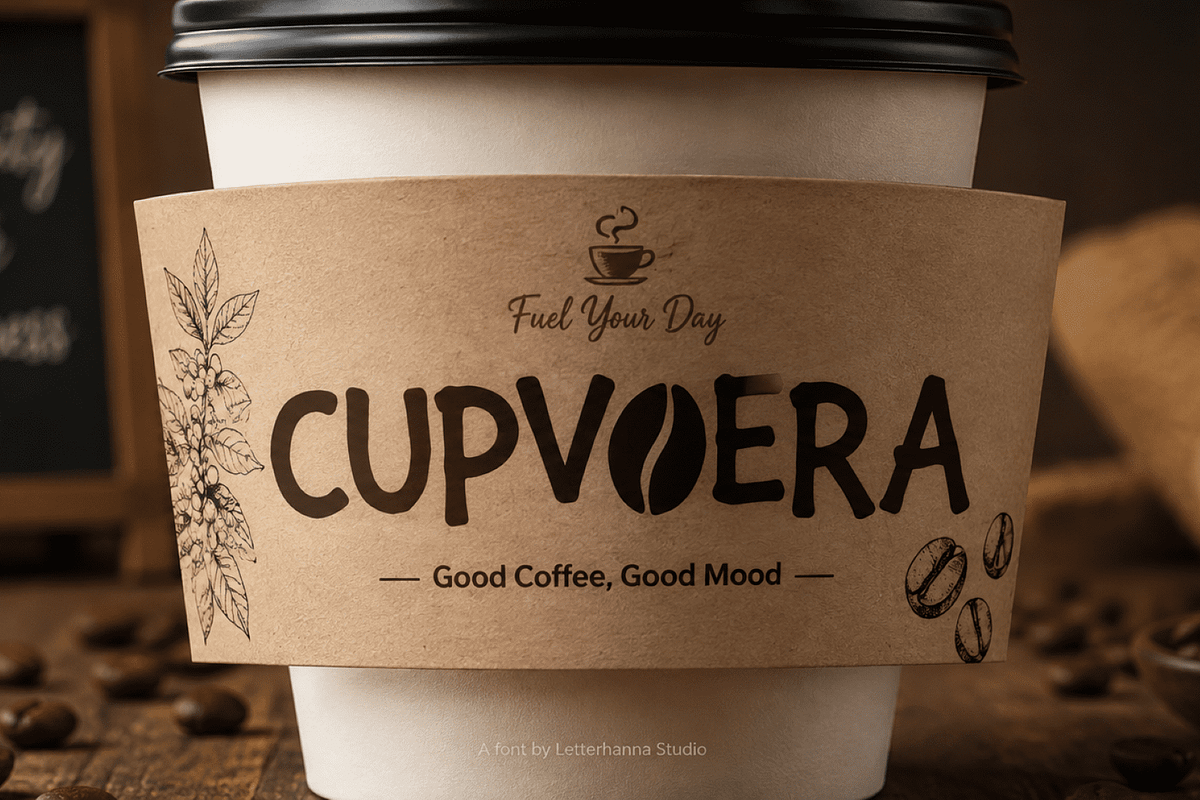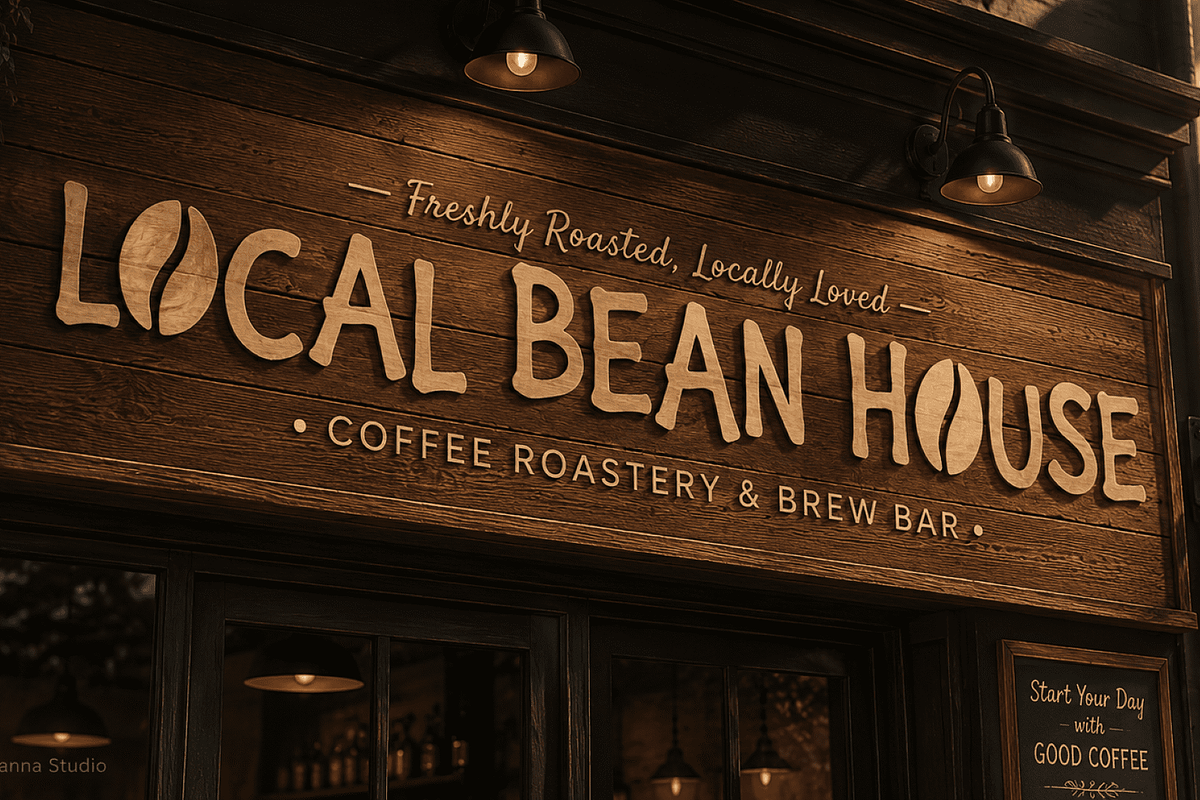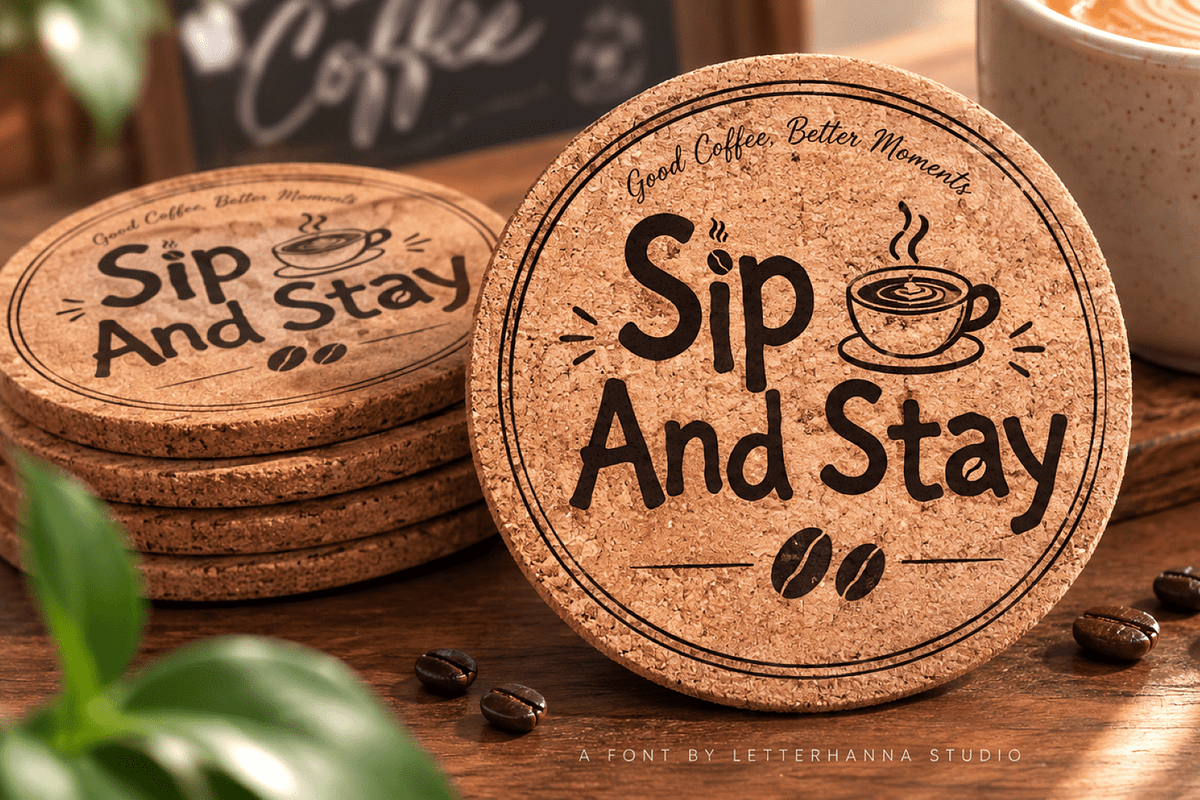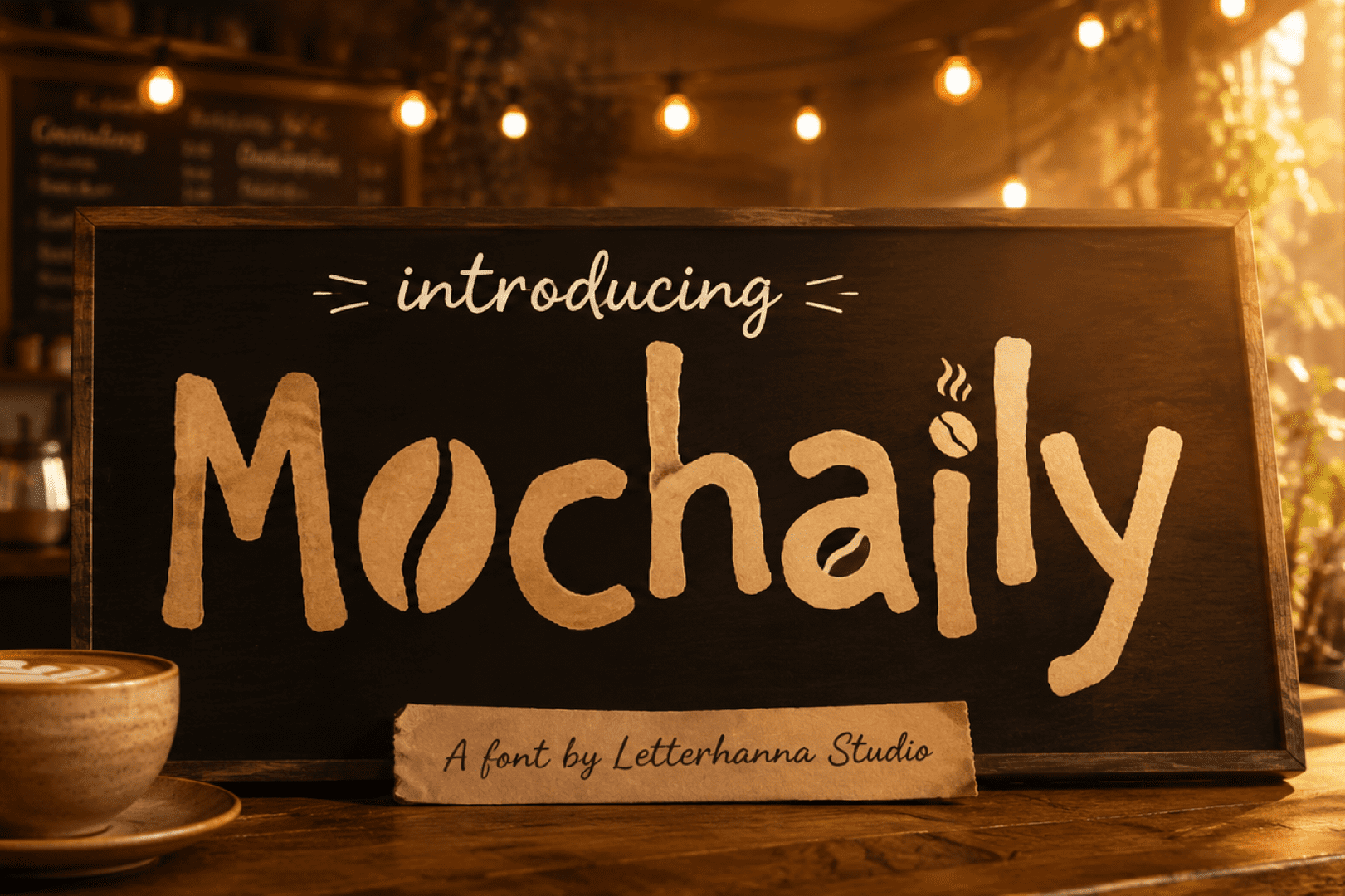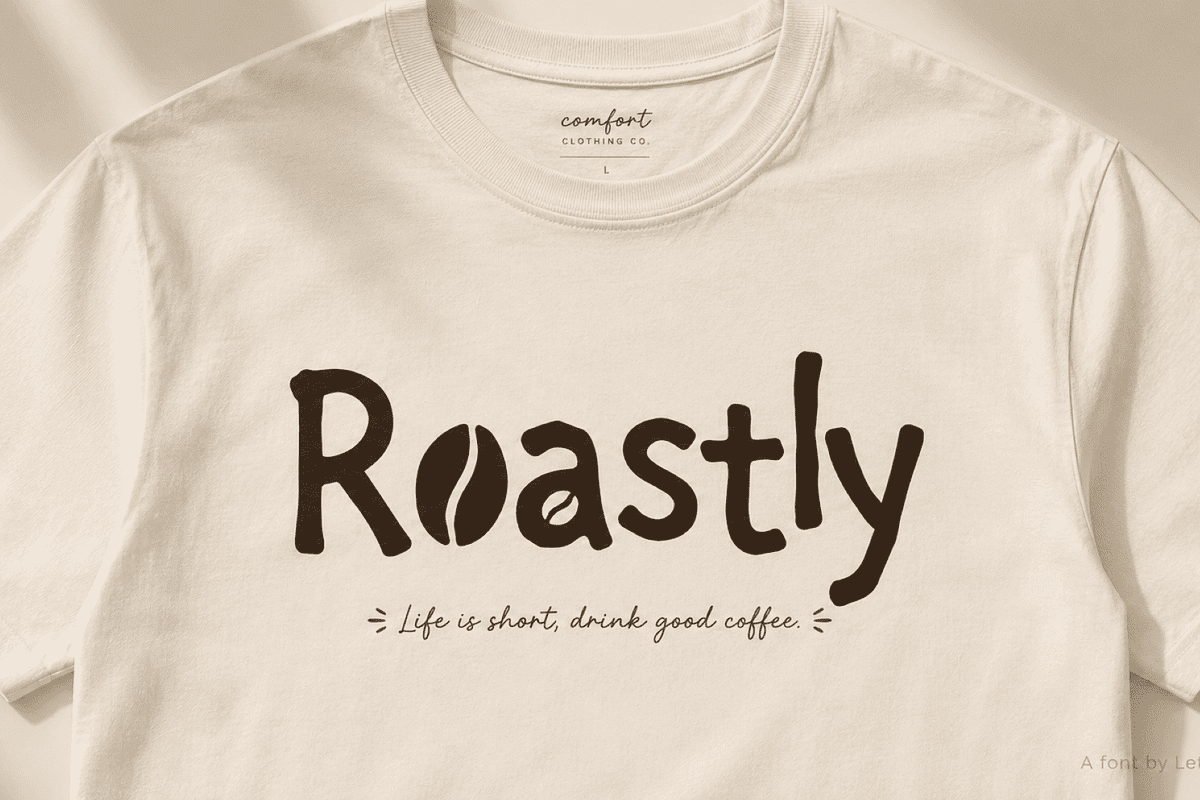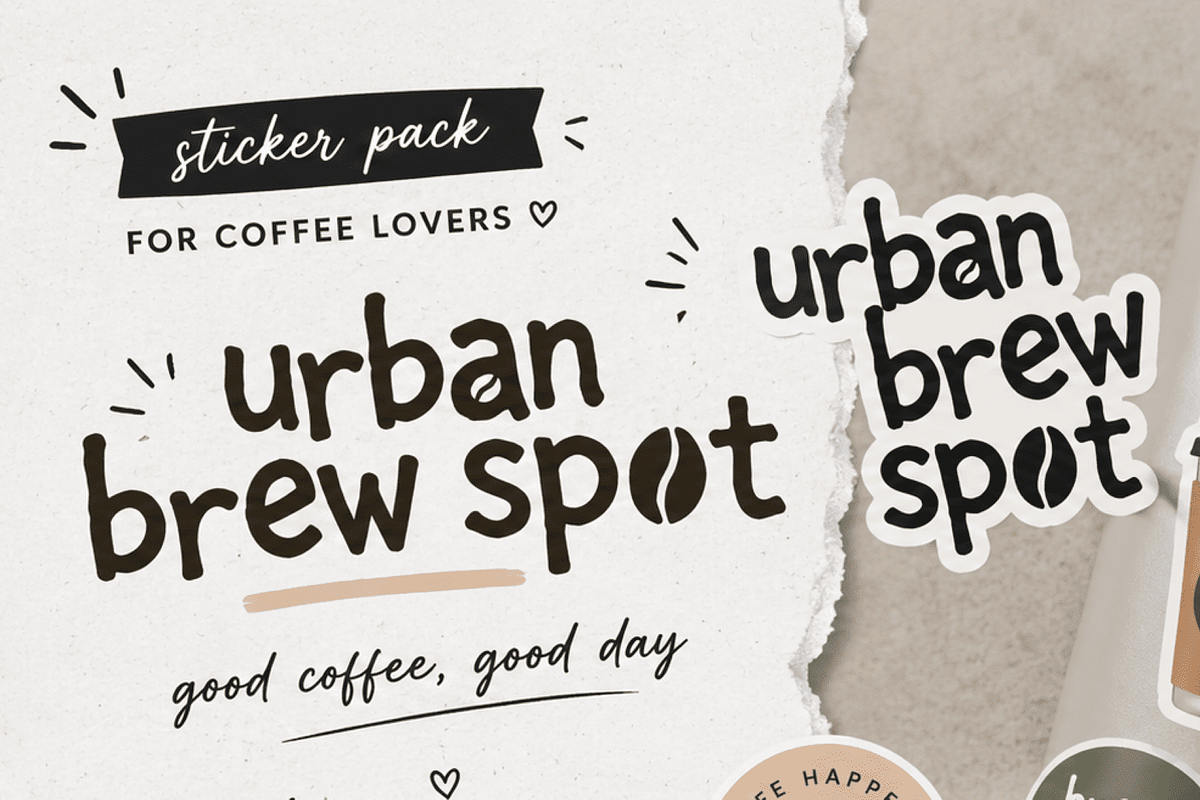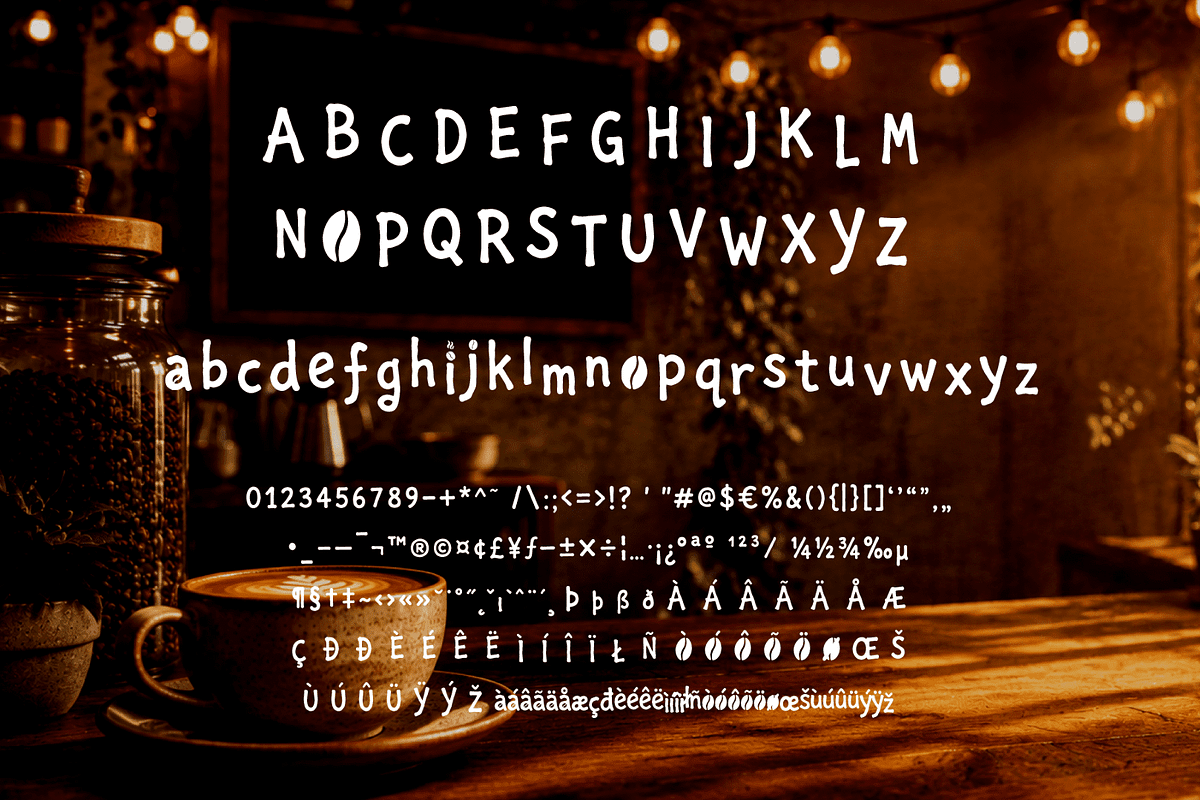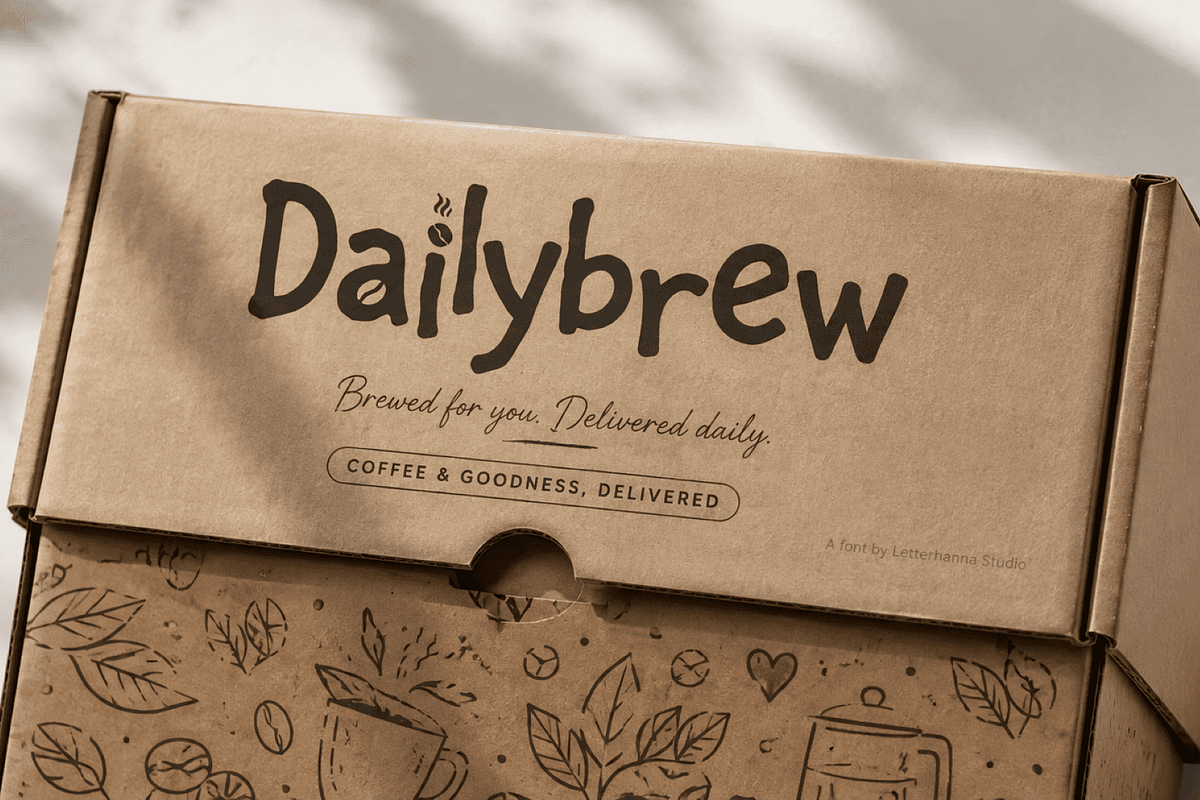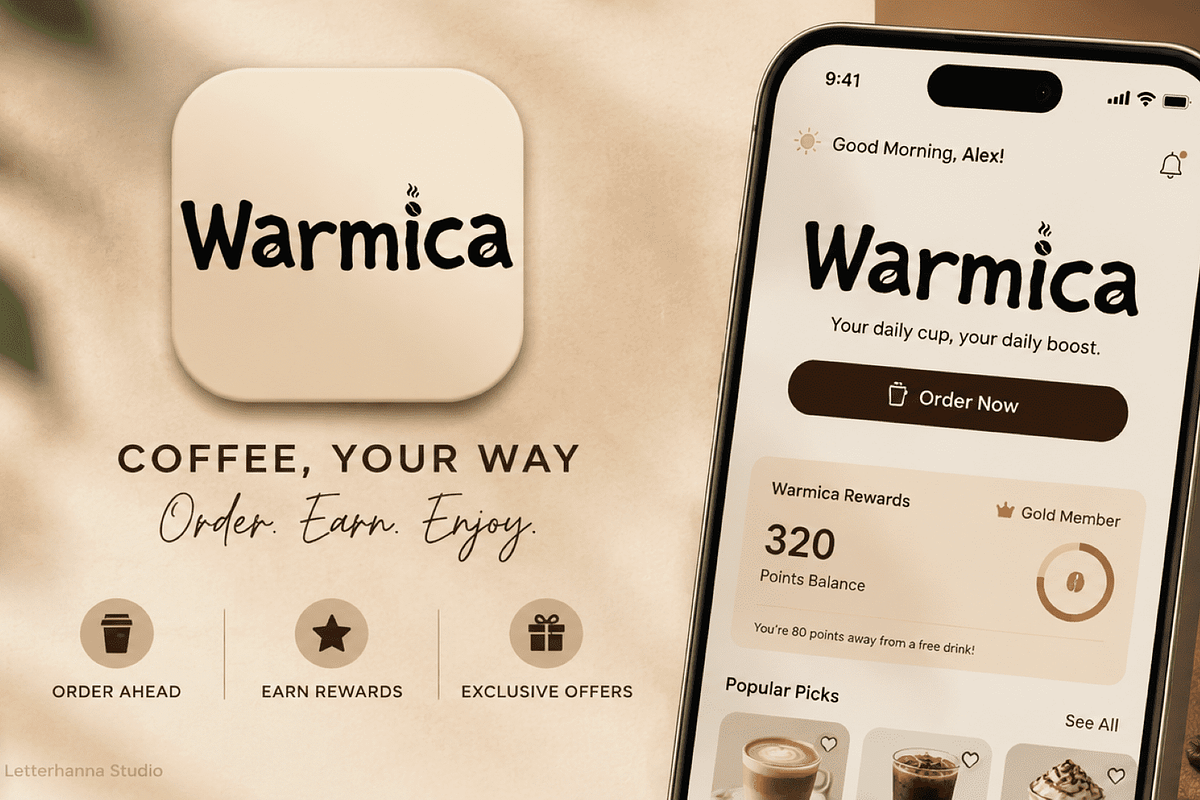
Mochaily Font - Playful Handwritten
Meet Mochaily: The Playful Handwritten Font for Coffee Lovers
There's a particular kind of magic in a café at 7 a.m. — the quiet hiss of the espresso machine, the low murmur of early conversations, the chalkboard menu scrawled just moments before opening. Mochaily was designed to bottle that exact atmosphere into a typeface. It's a bold, hand-drawn coffee font built for brands that want to feel less like a business and more like a warm hello.
From Sketch to Steam: The Inspiration
Every letter in Mochaily started as a rough, quick sketch — the kind of lettering you'd find scribbled on a receipt or drawn across a takeaway cup. Rather than smoothing those imperfections away, the design leaned into them. The result is a handwritten font with thick, confident strokes and slightly uneven edges that feel drawn by a real hand, not generated by a machine.
The most memorable detail sits quietly atop the lowercase "i": a coffee bean dot with a soft curl of steam rising above it. It's a tiny flourish, but it does a lot of storytelling in a very small space — instantly linking the font to café culture, roasteries, and everything coffee-related.
Breaking Down the Design
Structurally, Mochaily balances two moods at once. The uppercase letters are big, rounded, and assertive — built for logos, headers, and signage that need to command attention. The lowercase letters curve more softly, giving body copy and taglines a relaxed, conversational feel. This contrast is part of what makes it such a strong playful display font: it's expressive without ever tipping into chaos.
The vibe overall? Think handmade chalkboard art, kraft paper coffee bags, and hand-painted café signs swinging gently in the morning breeze. It's rustic, warm, and just a little rebellious against the sleek, minimal sans-serifs that dominate so much modern branding.
Best Use Cases for a Genuine Cafe Branding Font
Mochaily isn't just visually charming — it's genuinely practical for real branding work. As a dedicated cafe branding font, it performs well across:
Roastery packaging and coffee bag labels
Café storefront signs and window lettering
Digital menus and printed menu boards
Instagram and Pinterest promotional content
Coffee subscription box branding
Its bold weight keeps it legible on packaging and signage, while its handwritten character keeps it feeling personal rather than corporate — a rare combination in display typography.
Small Story, Big Personality
Picture a small-batch roastery just starting out. The owner hand-labels every bag until the business grows too fast to keep up by hand — and that's exactly the gap Mochaily fills. It lets a growing brand scale its packaging and marketing without losing the handcrafted feeling that made customers fall in love with it in the first place. That's the quiet power of a well-designed handwritten font: it preserves intimacy at scale.
Your Brand, One Warm Cup at a Time
Not every font can carry a story. Mochaily can — a coffee bean, a curl of steam, a slightly wobbly stroke that feels like it was drawn just for you. It's playful, it's bold, and it's built specifically for brands rooted in warmth, craft, and community.